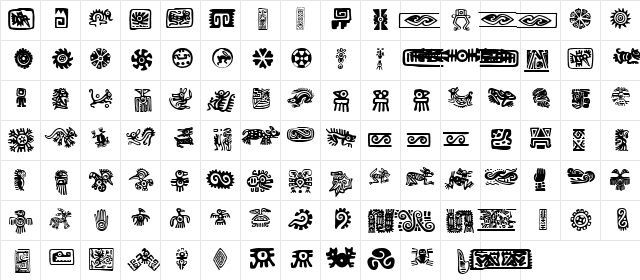
P22 Mexican Relics Regular
Design Context for P22 Mexican Relics Typeface
P22 Mexican Relics is a composed and adaptable typeface that performs quietly and consistently across a wide range of design contexts.